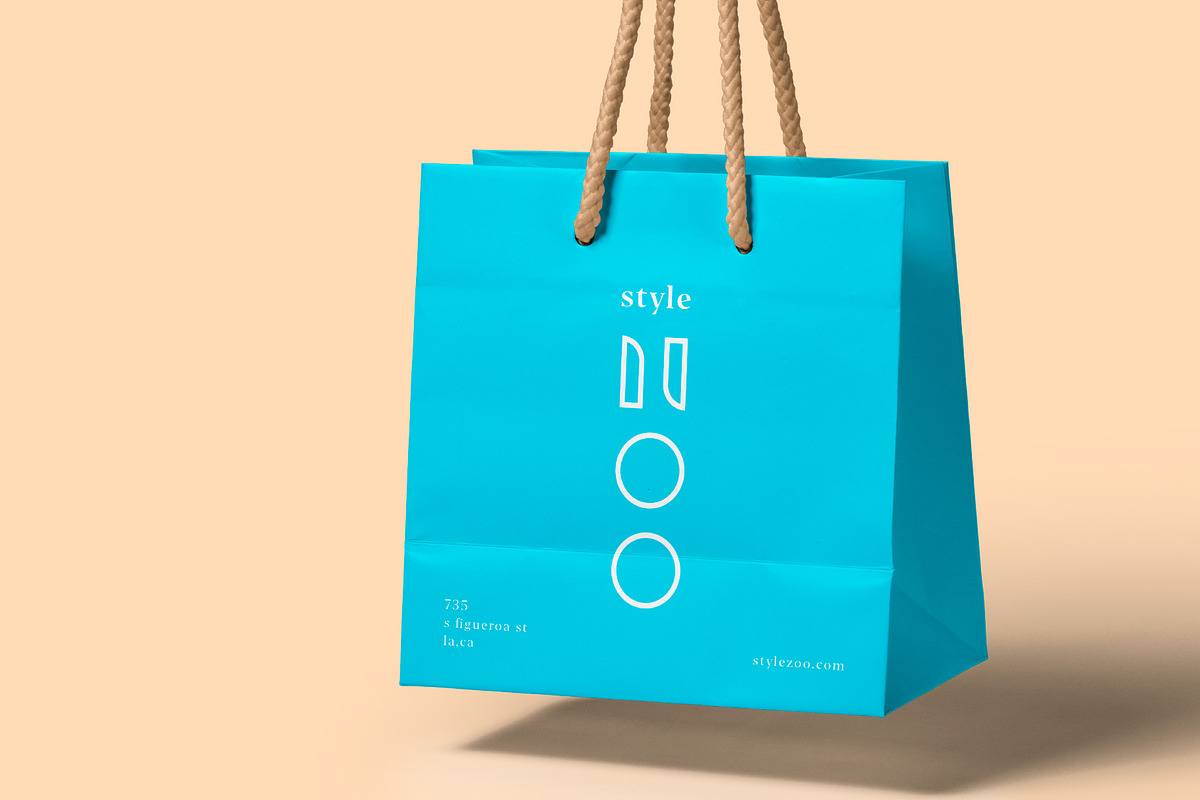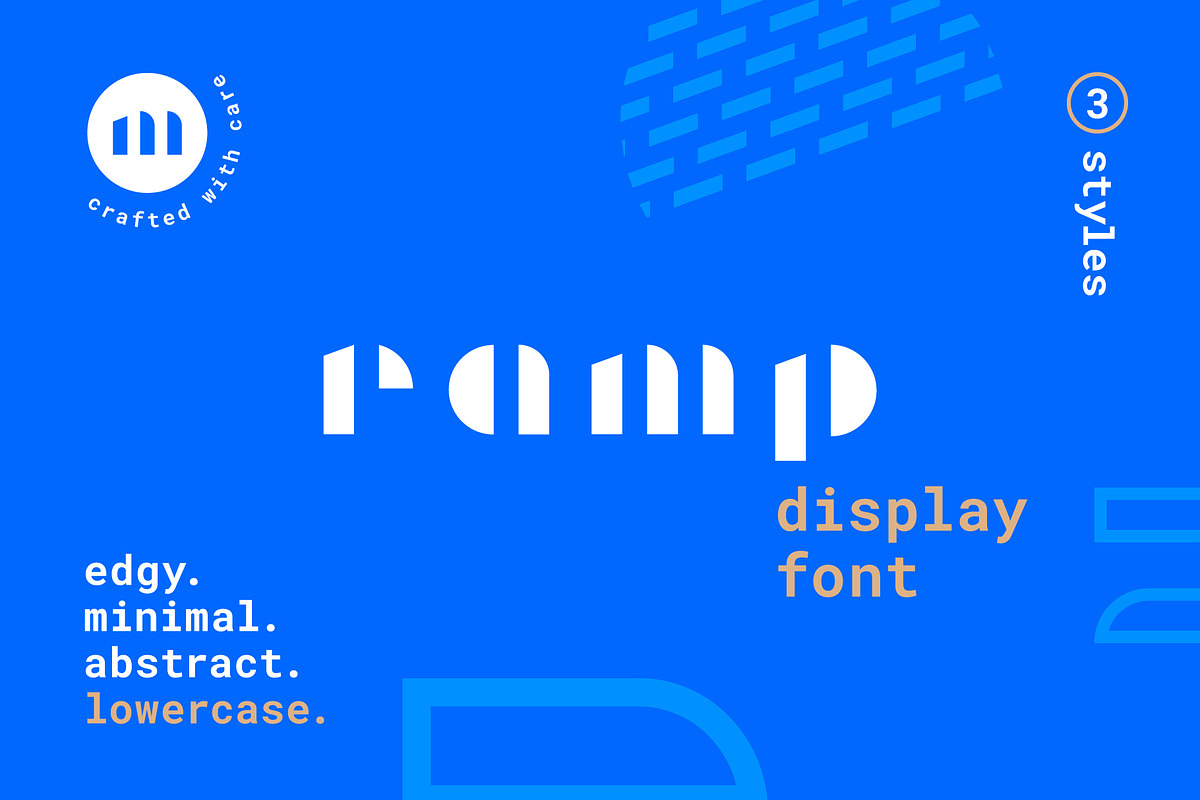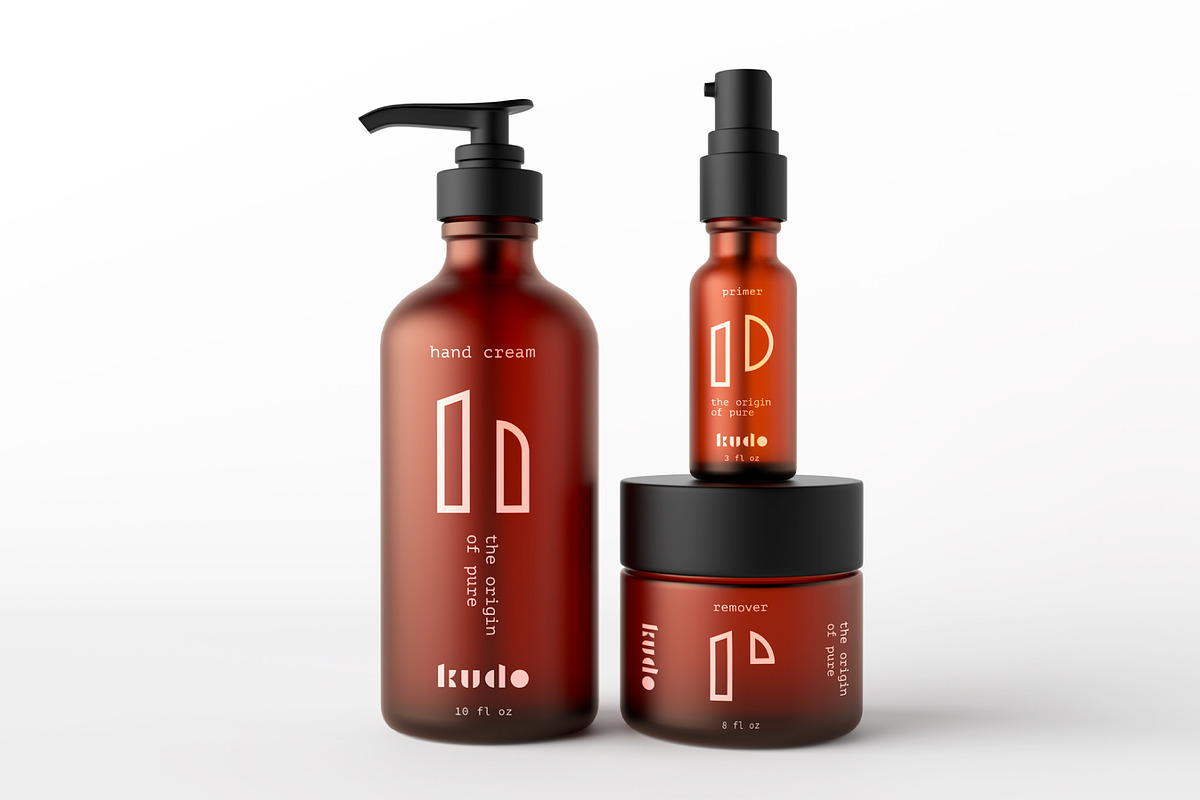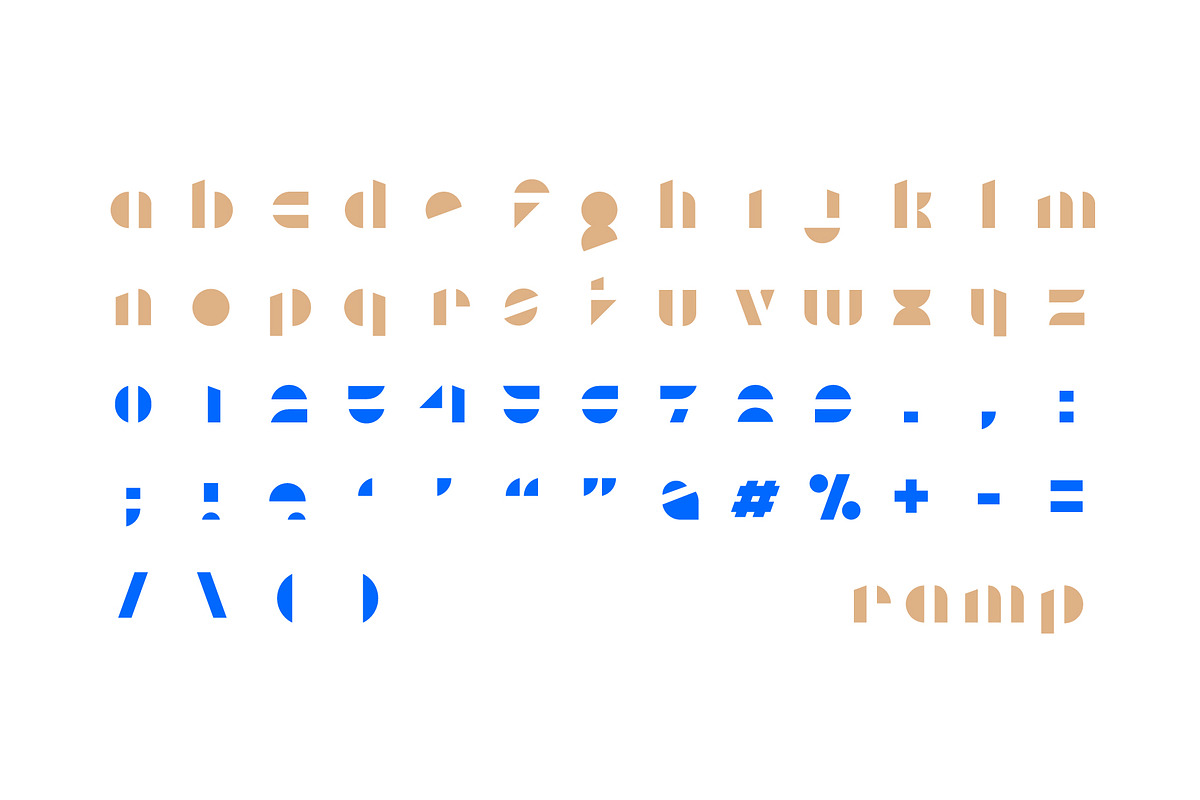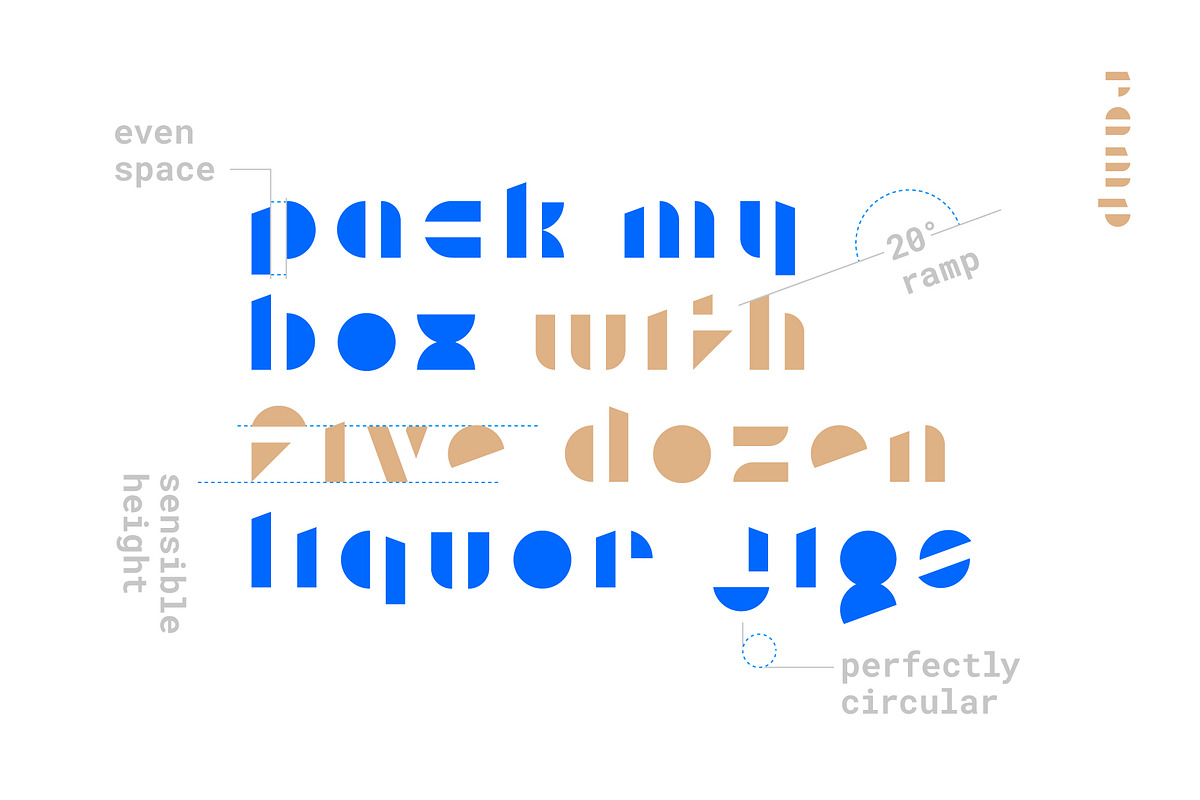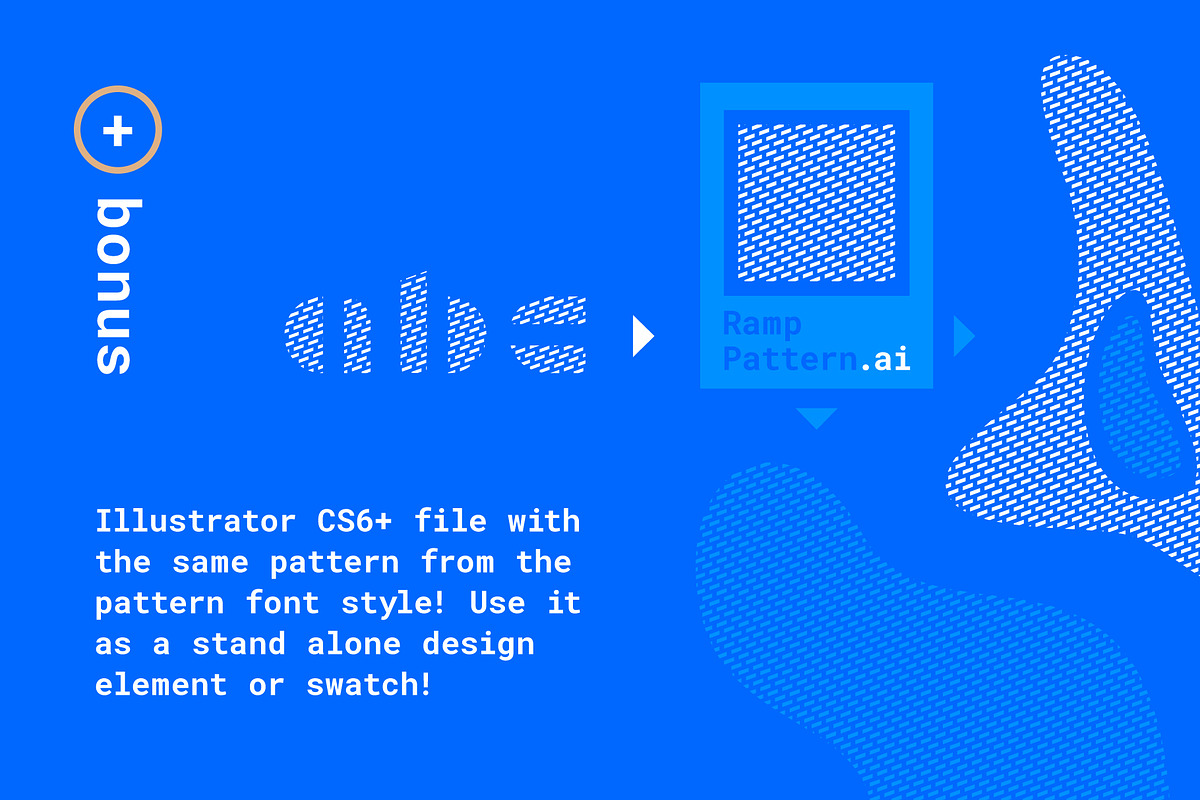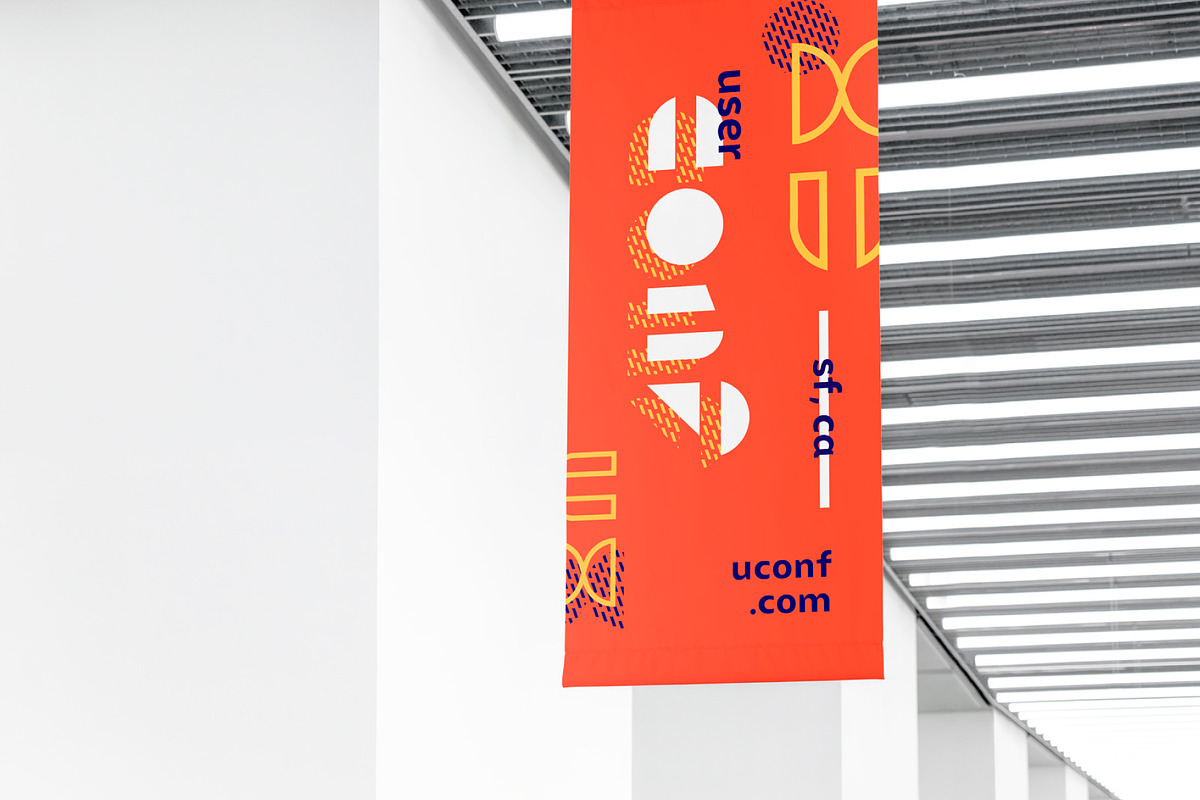
Ramp Display Font
Ramp Display is an abstract, geometrical and minimal display font that has been carved with the highest attention to detail. The unique forms will save you time and help your next branding, web, or packaging project stand out from the crowd! You can crank up the abstract aesthetic even more with three unique styles of the font that can be layered together or used on their own. Also included is the same pattern used in the pattern font style as both a vector shape and Illustrator swatch.
3 Unique Styles: Regular, Outline, and Pattern
- Also included is the same pattern used in the pattern font style as both a vector shape and Illustrator swatch.
- Ramp Regular
- Ramp Outline
- Ramp Pattern